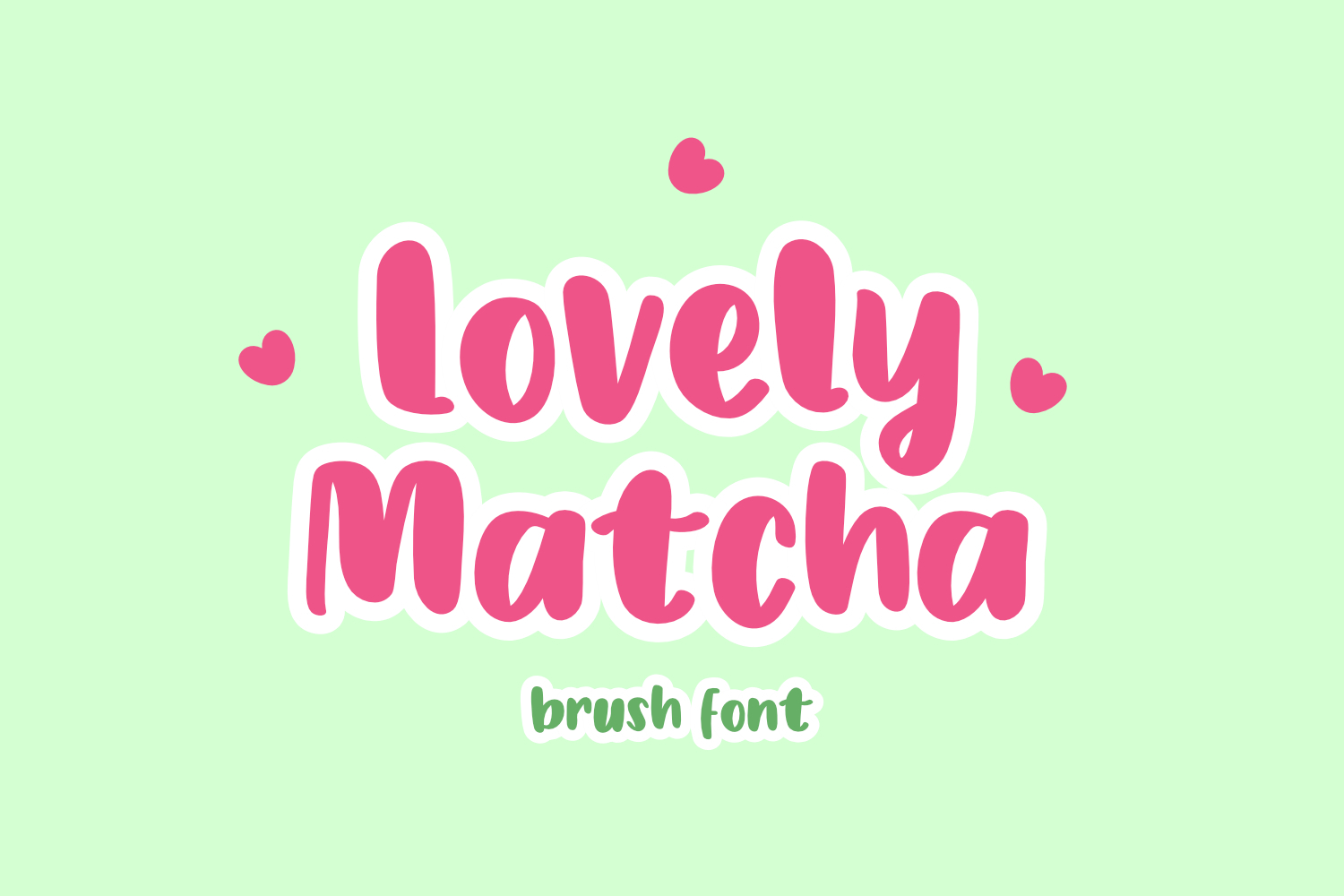
Lovely Matcha Font
Lovely matcha
Lovely Matcha is a font that combines a modern, trendy silhouette with a sweet, hand-lettered charm. Featuring thick, luscious downstrokes and seamless connections, this font is designed to stand out. It brings a cozy yet professional vibe to your artwork.
Lovely Matcha Font